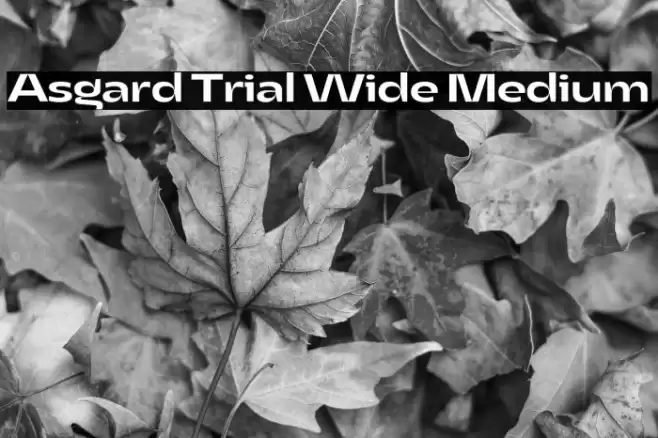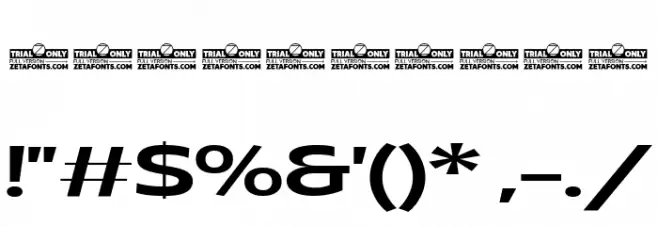
Asgard Trial Wide Medium Font
Asgard Trial Wide Medium Description
This font features a bold and modern design with a wide stance, offering a strong and impactful presence. The characters are clean and geometric, with a slight curvature that adds a touch of elegance. The uppercase letters are particularly striking, with a uniform height and width that create a cohesive look. The lowercase letters maintain the same geometric style, providing a seamless transition between cases. The numerals and special characters are consistent with the overall aesthetic, ensuring versatility across different uses. This font is perfect for projects that require a contemporary and assertive style.
A bold, modern font with a wide, geometric design from Regular fonts.
- Proposed Projects: Ideal for branding, advertising, headlines, and digital media projects that require a strong visual impact.
- Width: Expanded
- Use Case: Headlines, Logos, Branding